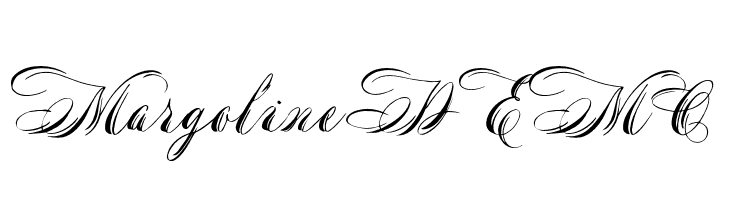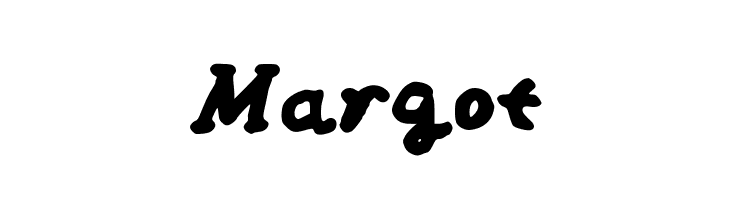
A bold, playful font with rounded, decorative characters.
An intricate, decorative font with bold, patterned characters.
A dynamic and expressive script font with fluid, cursive strokes.
An elegant and decorative font with flowing swashes and intricate curves.
An elegant script font with flowing, cursive style and intricate swashes.
A playful, hand-drawn font with rounded, flowing strokes.
A playful, bold font with rounded, hand-drawn characters.